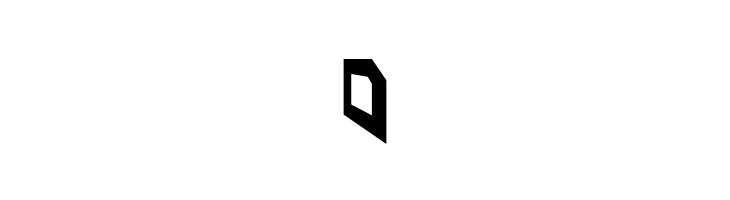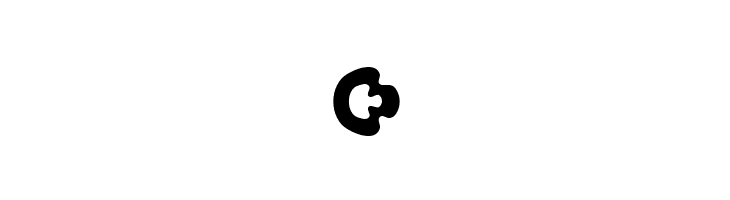
• PerformarAL
A bold, geometric font with a futuristic, digital aesthetic.
• pers
A bold, angular font with a futuristic and geometric design.
• Perturb the Outline
• Perturb the Outline Curved
A bold, playful font with rounded, exaggerated curves and a whimsical style.
• Perturb the Outline Diagonal
A bold, geometric font with angular shapes and intricate cut-out patterns.
• PhattPhreddyNF
A bold, modern font with thick strokes and a strong presence.
• PhoenicianMoabite Bold
A bold, decorative font inspired by ancient scripts with angular, geometric shapes.
• PhoenicianMoabite Normal
A bold, angular typeface inspired by ancient scripts with a decorative and historical flair.
• PhoenicianMoabite Thin
A thin, angular font inspired by ancient Phoenician and Moabite scripts.
• Picadilly Bizarre
A decorative and avant-garde font with geometric shapes and fragmented lines.